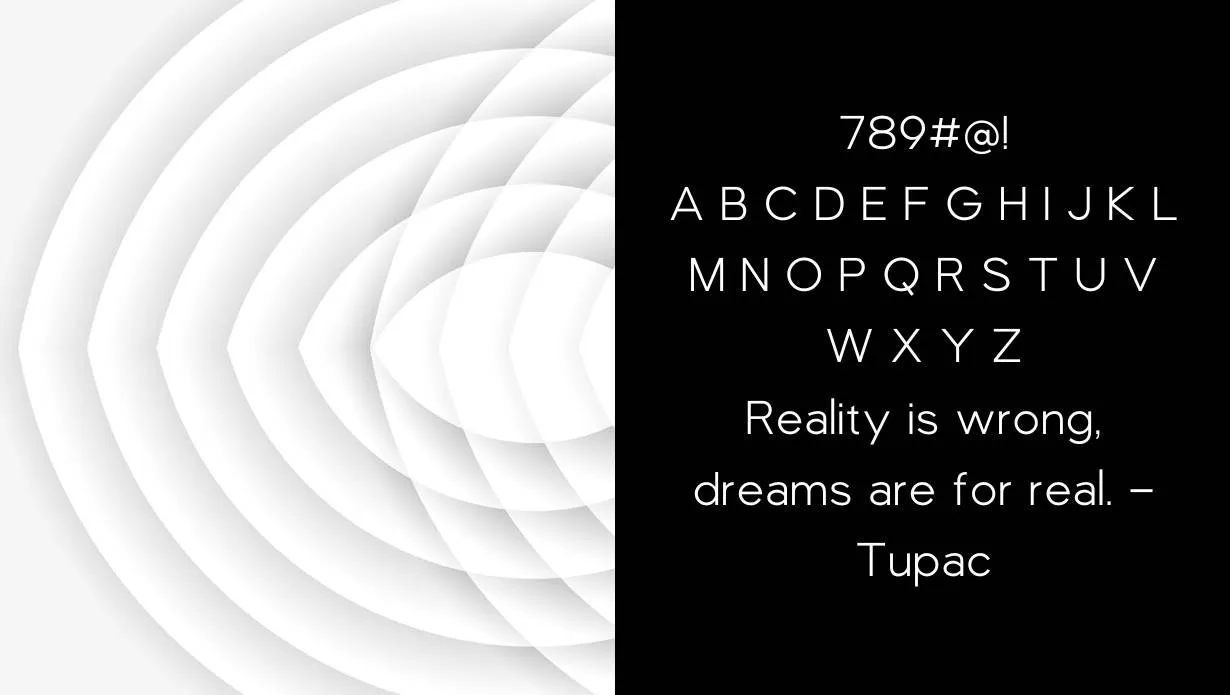
Algoria Font was designed by Ryoichi Tsunekawa and released in 2013. It is a sans-serif typeface with a humanistic design. The font is available in two weights (light and regular) and three widths (condensed, normal, and extended).
The glyph of this font includes uppercase and lowercase letters, numbers, punctuation marks, and symbols.
Algoria Font Family
Algoria Font also supports multi-language. It is also known for its immense language support same to the zabur font and it can support many different international alphabets.